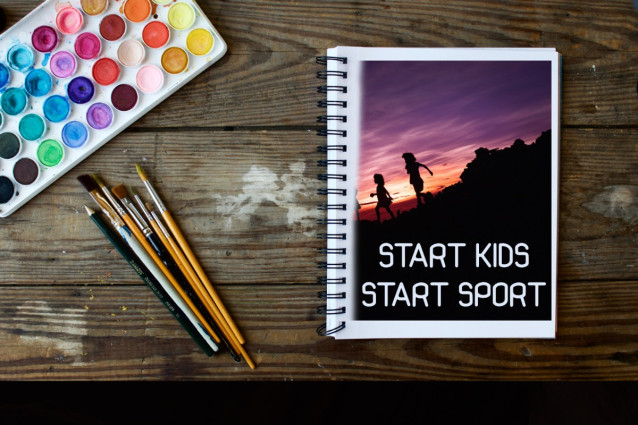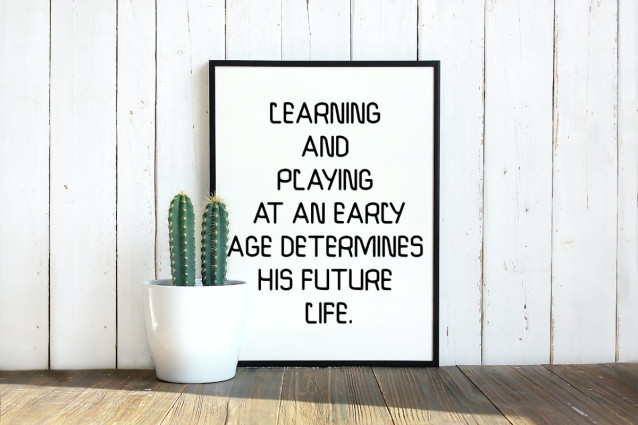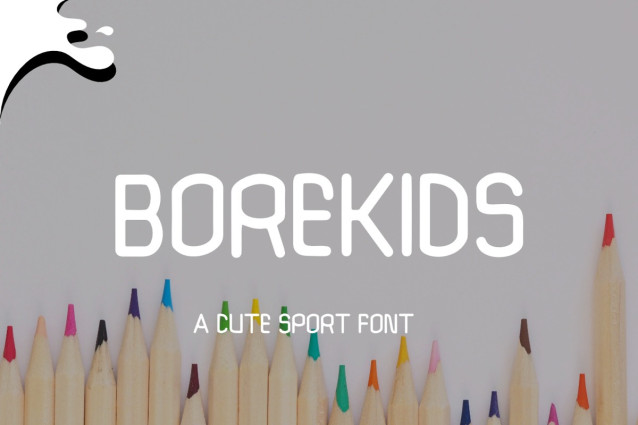
Borekids Font inspired by modern typography. This font is made with a high premium quality level which you can use as flyers, quotes, posters, banners, packaging, merchandise, logotypes and much more.